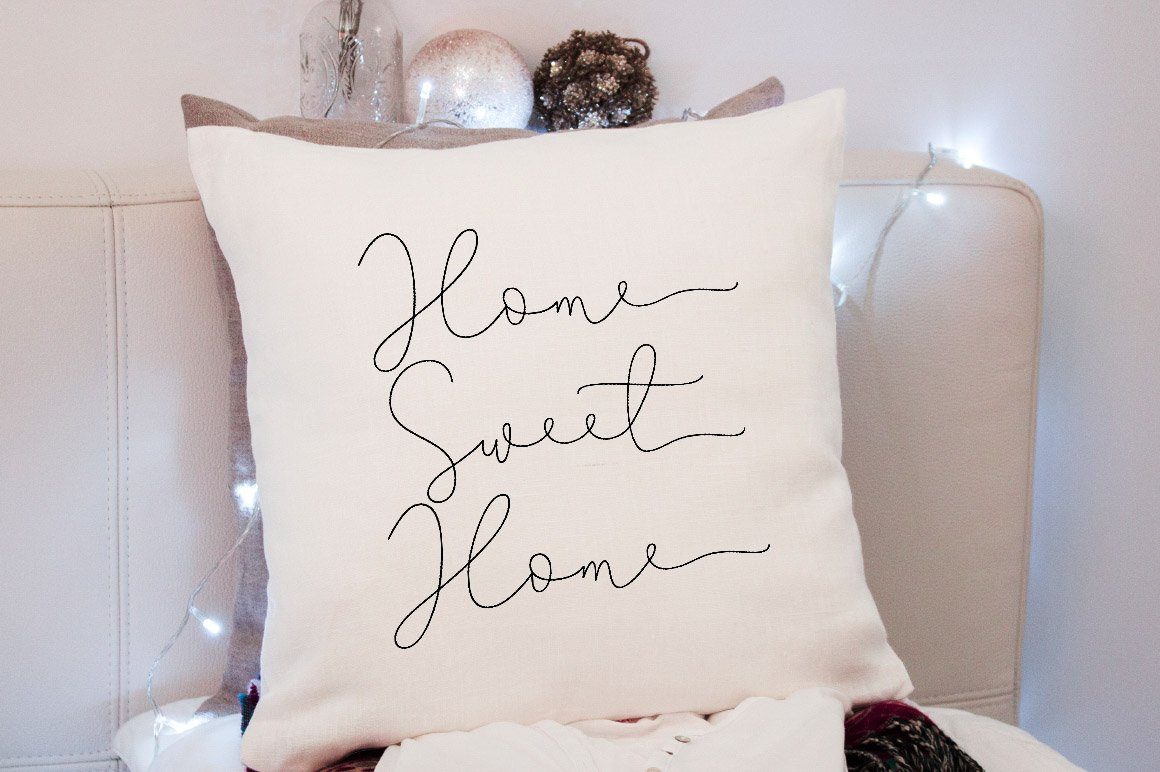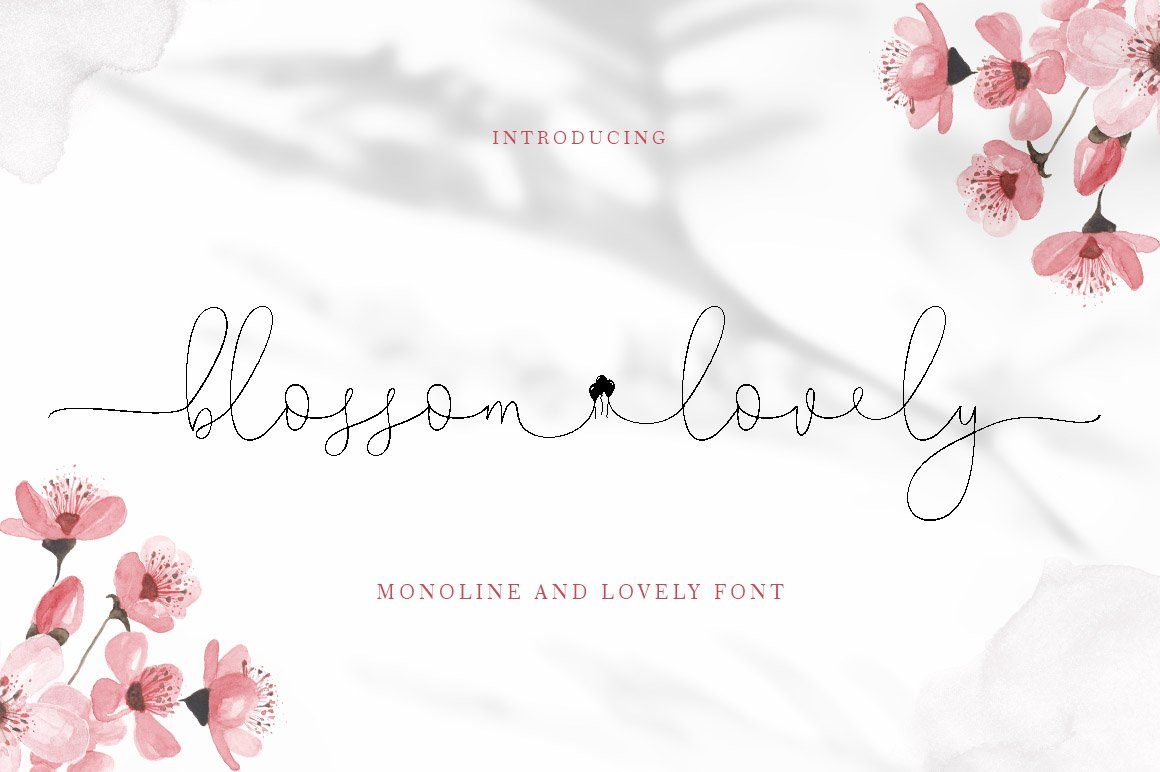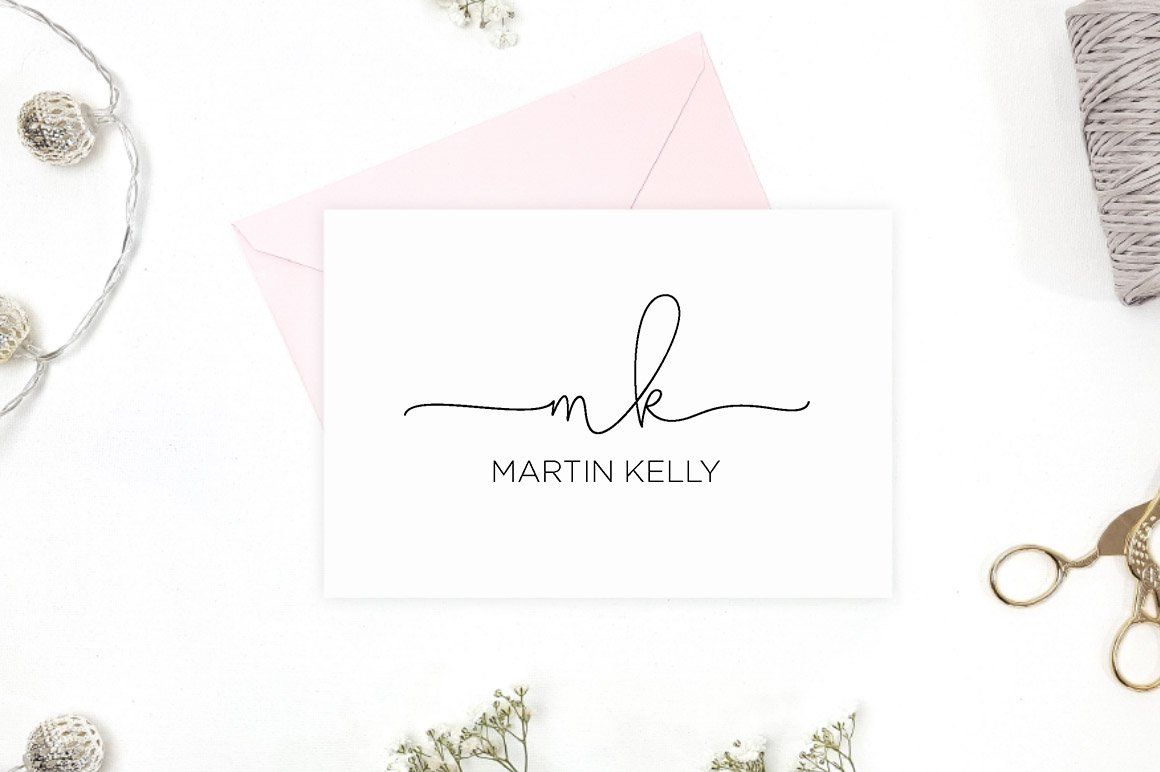
About blossom lovely
blossom lovely is an elegant monoline script font that works just fine. I’ve always dreamed of designing a font that feels welcoming, Smooth lines, single weight lines and charming variations of blossom lovely achieve the ideal balance of humanity and clarity. This font is perfect for branding and marketing campaigns that call for personality and friendliness. My goal with this font is to create a readable script font that will serve a variety of purposes. This font maintains personality in creating a consistent character set. It has a handmade taste and provides a hint of authenticity; perfect for your upcoming project. Do not miss! blossom lovely Script comes with: OTF & TTF Uppercase & Lowercase letters Punctuation & Symbols Numbers To access all the lovely blossom features like style changes, etc., it is highly recommended to use professional design software such as Adobe Illustrator, Adobe Photoshop, Adobe InDesign, or Procreate (via ‘add text’ feature).